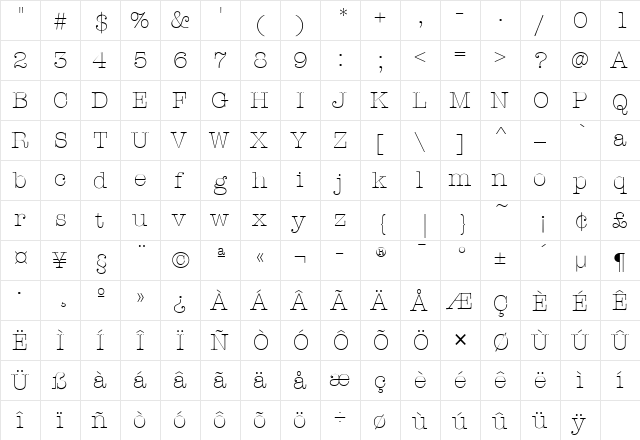
AmTypewriterITC Light
Design Context for AmTypewriterITC Typeface
AmTypewriterITC uses fixed-width spacing throughout, giving it the structured, systematic character associated with coding environments and technical documentation. The delicate stroke weight brings airiness and refinement to layouts.
Pro Tip: Pair AmTypewriterITC with a proportional sans for UI contexts where code-style labels and regular body copy need to coexist.